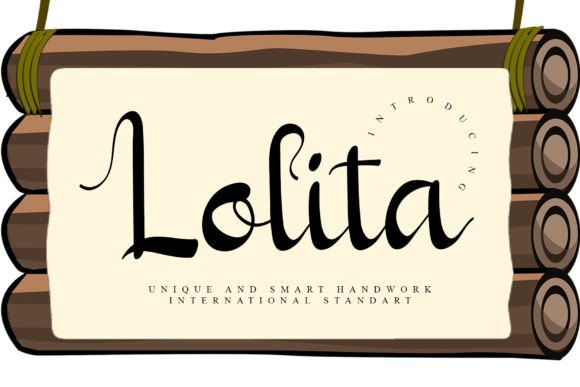
Introducing Lolita Font, a Script Font Family Designed to Capture the Essence of Sophistication and Grace
Journey into the realm of elegant penmanship with Lolita Font, a meticulously crafted script font family that gracefully dances across your digital canvas, leaving a trail of captivating charm and distinction. Born from the creative forge of giartstudios, this font was meticulously designed to evoke the allure of hand-lettered artistry, bringing a touch of timeless elegance to your designs.
Lolita Font: A Tale of Timeless Beauty and Unparalleled Grace
Lolita Font is more than just a font; it's an artistic expression that speaks to the soul. Its carefully crafted glyphs and swashes flow effortlessly, capturing the fluid grace of handwritten calligraphy. Each letter is a work of art, meticulously designed to convey emotion and personality, adding a touch of warmth and intimacy to your designs. With Lolita Font, your words come alive, whispering tales of love, joy, and elegance.
Unleash Your Creativity with Lolita Font: The Perfect Font for Every Occasion
From the delicate curves of wedding invitations to the bold statements of billboards, Lolita Font effortlessly adapts to a myriad of design applications. Its versatility shines through whether you're crafting heartfelt greeting cards, designing eye-catching logos, or adding a touch of sophistication to your business cards. Lolita Font elevates your designs, transforming them into masterpieces that captivate and inspire.
Lolita Font: Simplicity Meets Functionality, Beauty Meets Ease of Use
Embark on a Creative Odyssey with Lolita Font: Your Gateway to Design Excellence
Lolita Font beckons you to embark on a creative odyssey, a journey where your ideas take flight and your designs reach new heights of brilliance. Whether you're a seasoned designer or just starting your creative exploration, Lolita Font empowers you to express yourself with confidence and artistry. Its versatility and ease of use make it the perfect companion for your creative pursuits, allowing you to effortlessly weave your design dreams into reality.